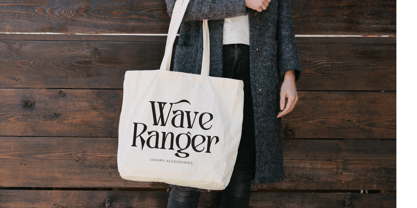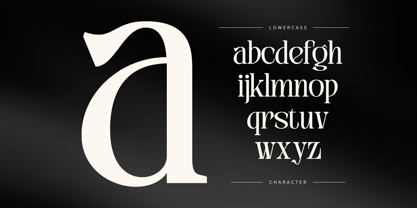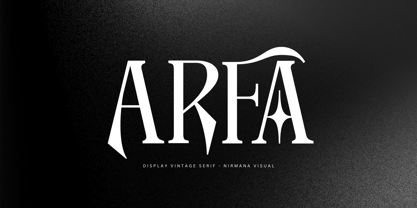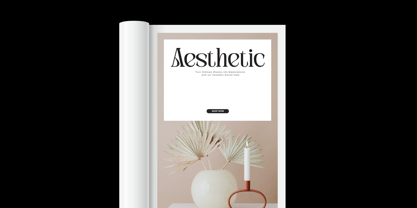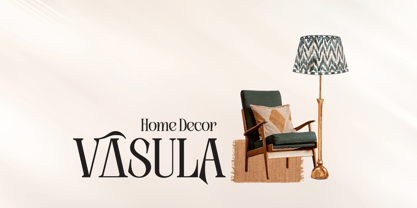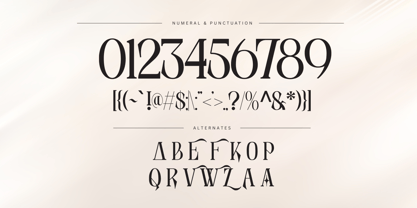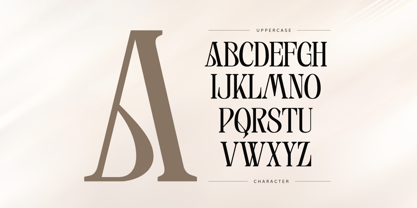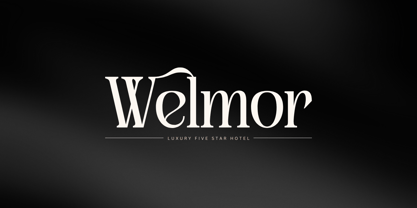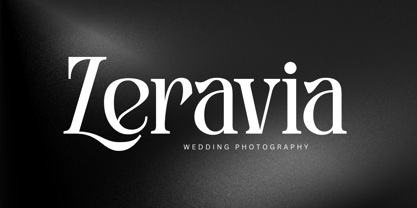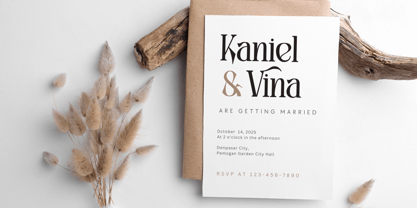
Arfa
by Nirmana Visual
The Arfa Font Family was designed by Sigit Dwipa and published by Nirmana Visual. Arfa contains 2 styles and family package options.
Arfa Vintage is a timeless serif font that blends classic charm with modern elegance. Featuring both Regular and Italic styles, it’s perfect for logos, branding, packaging, and editorial designs. With refined curves and vintage-inspired details, Arfa Vintage brings a touch of sophistication and heritage to any project. Ideal for those who seek a strong, stylish identity with a nostalgic flair.